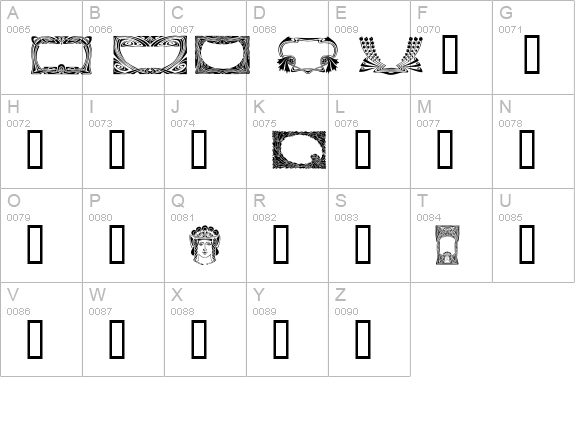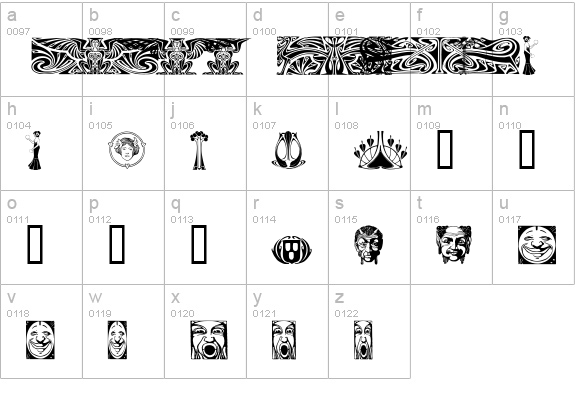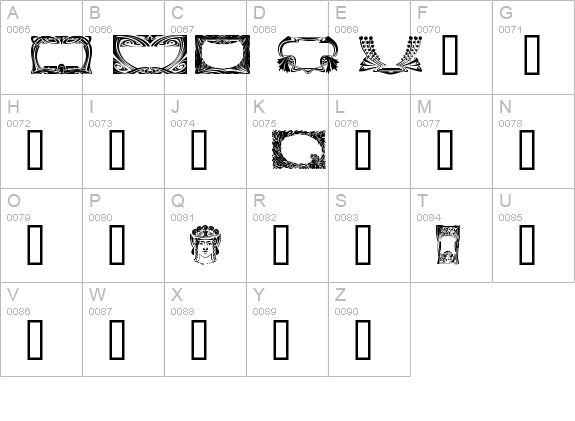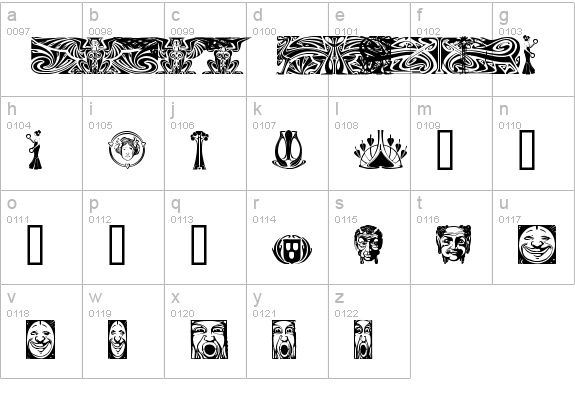
Art Noveau Headers Font Details
The Art Nouveau Headers font is a stunning display typeface that beautifully captures the intricate and flowing characteristics of the Art Nouveau design movement. With its elegant curves and ornate details, this font is perfect for adding a touch of sophistication and vintage charm to your projects. This font is versatile and can be used for a wide range of design applications, including posters, invitations, logos, and more. The Art Nouveau Headers font is free to download at FontsMarket.com, making it accessible to all designers looking to elevate their work with a touch of timeless elegance. Unlock the beauty of Art Nouveau with this exquisite font and bring a touch of artistic flair to your creations.